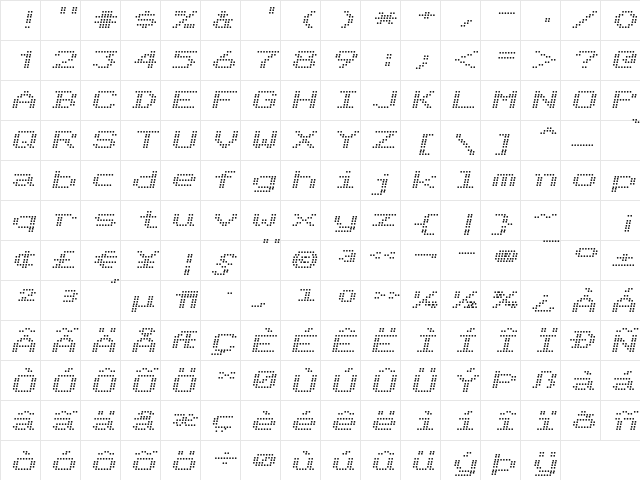
Telidon Ex is a composed and adaptable typeface that performs quietly and consistently across a wide range of design contexts. The slanted form adds forward momentum and visual energy.
Pro Tip: Use Telidon Ex for emphasis, pull quotes, and subheadings where its slanted energy can add rhythm to the layout.